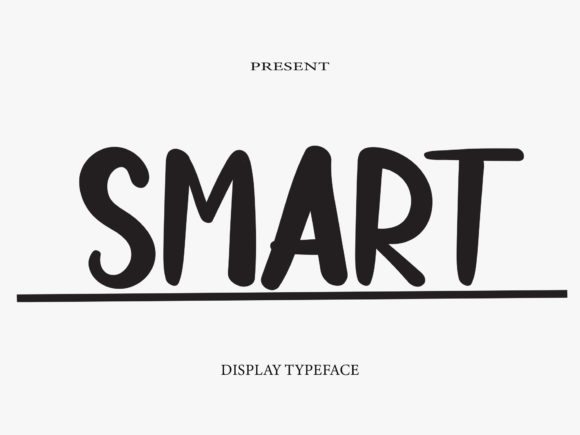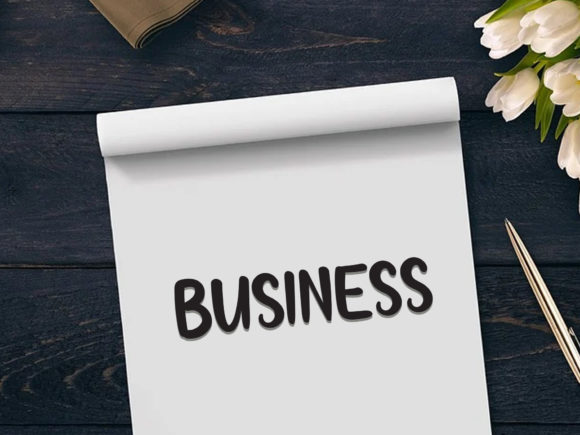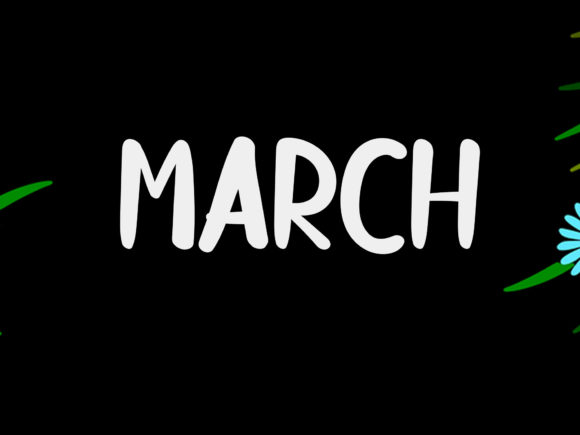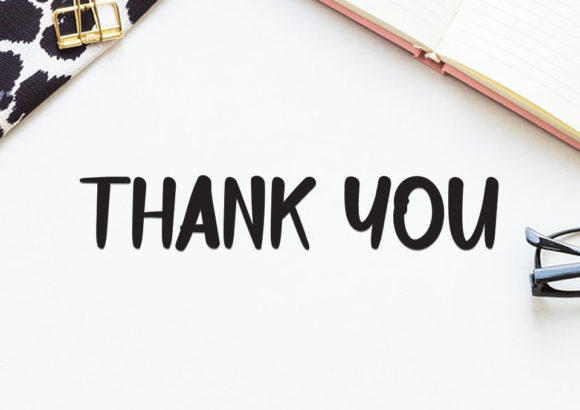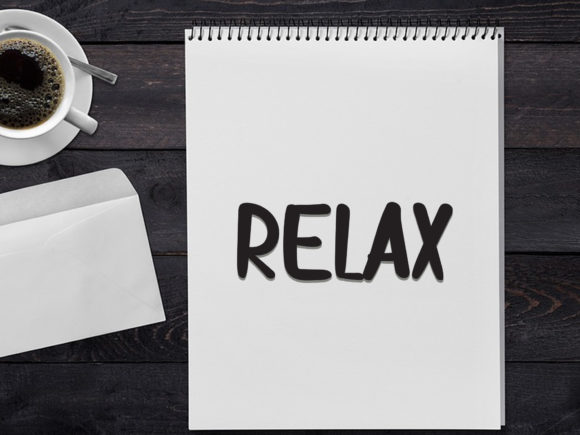
Smart Font
Smart Font: A Versatile Script for Creative Designs
The Smart font is an exceptional handwritten script meticulously designed for various creative projects. Its versatile nature makes it perfect for captivating titles, elegant invitations, and heartfelt letters.
Versatility in Design Applications
In titles, Smart brings a distinctive, eye-catching element. Its unique letterforms add creativity and personality, instantly grabbing viewer attention and setting the tone for content.
For invitations, this font lends a sophisticated yet approachable look. Whether for weddings or events, Smart creates designs that resonate with the audience.
Enhancing Written Communication
In letter writing, Smart adds authenticity to messages. Its carefully crafted characters convey thoughts with sincerity and style, suitable for both personal and professional correspondence.
The font’s versatility extends to headlines, logos, and product packaging. Its unique appearance ensures it stands out in any context, making projects memorable.
Smart in Creative Projects
Smart’s attention to detail makes it reliable for achieving desired outcomes in design endeavors. Its uniqueness and adaptability add value to any font collection.
Elevating Design Quality
Whether for wedding stationery or branding materials, Smart infuses projects with creativity and elegance. It enhances overall work quality across various applications.
Conclusion: A Font for Exceptional Results
Smart is a font that delivers exceptional results in diverse design contexts. From titles to invitations, it consistently enhances project quality. As designers explore its possibilities, they’ll find Smart an essential tool for creating visually striking and impactful work.